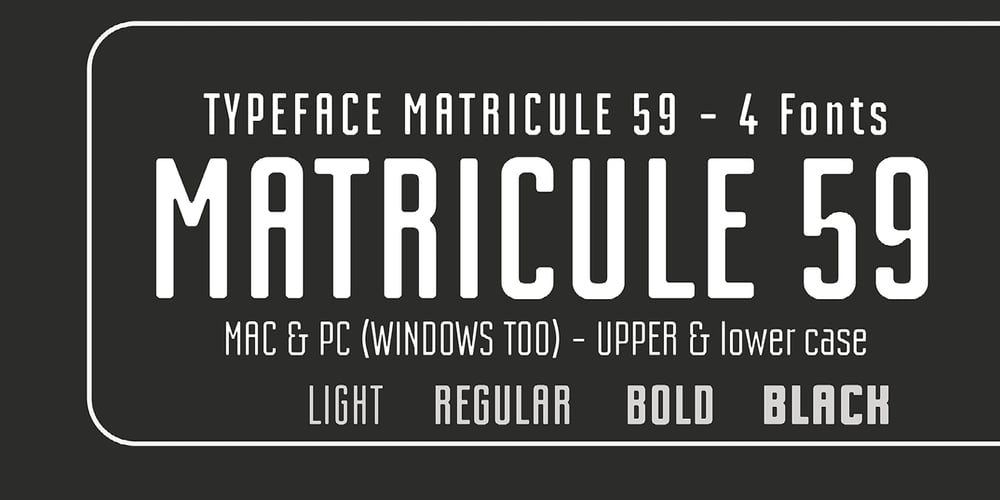
Matricule 59
Matricule 59 font
Matricule 59 Font Family was designed by Loïc Choquet and published by designdefontes. Matricule 59 contains 4 styles and family package options. Matricule 59 is a typeface whose design is inspired by license plates and by the deformations due to the stamping in the metal plates. These deformations give a very specific style, especially concerning the hairlines.It is the Ultra Condensed version of Matricule, a Typeface designed by Loïc Choquet.It consists of 4 fonts : Light, regular, bold and black.For Mac or PC.Well-suited for edition, logotypes, posters, etc. Each font contains 359 glyphs and supports up to 89 different languages.